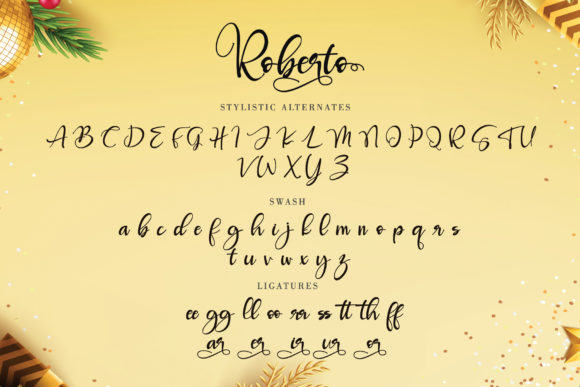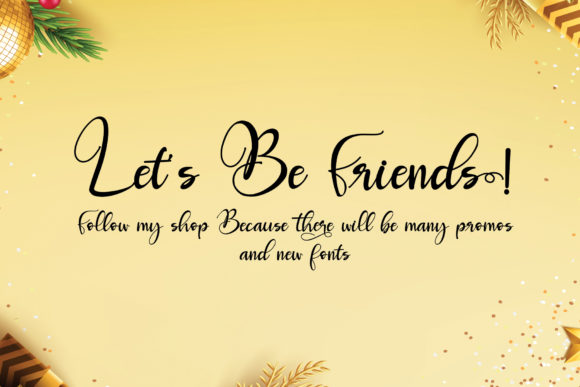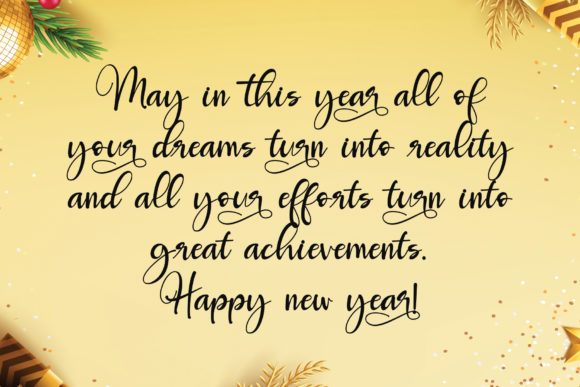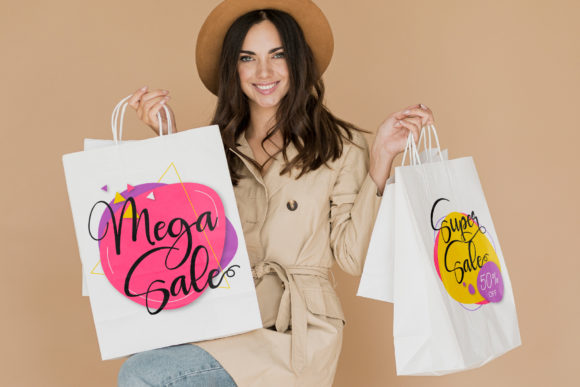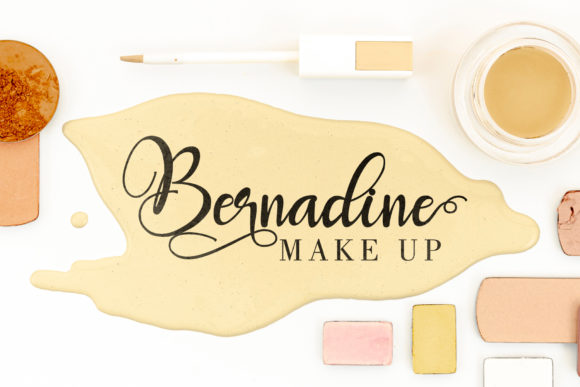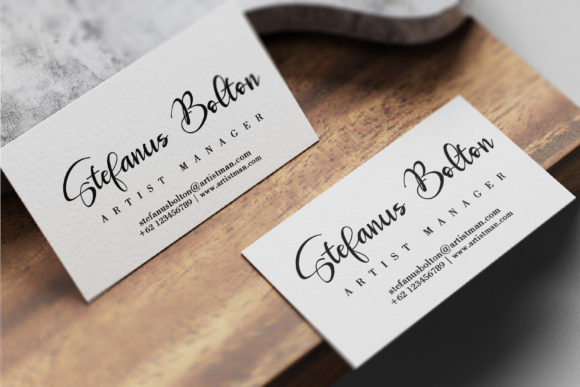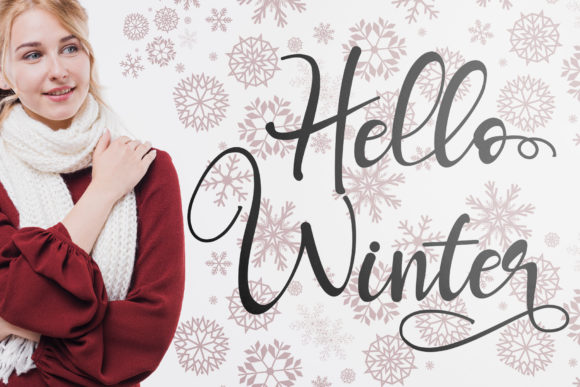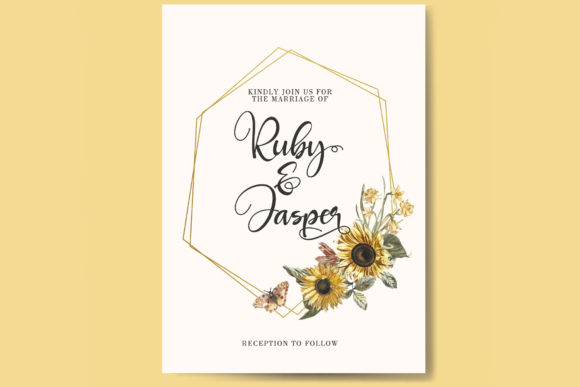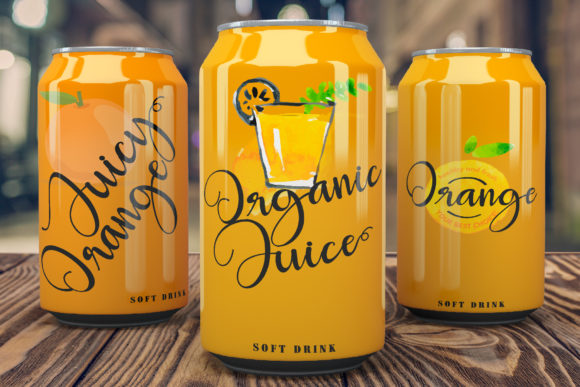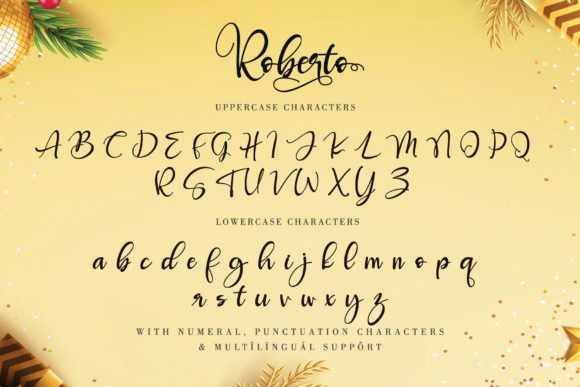
Roberto Font
About Roberto Font
Roberto is a new, fresh, funny, and cute calligraphy font with hearts that can be connected. It’s great for greeting cards, branding materials, business cards, quotes, posters, and more!